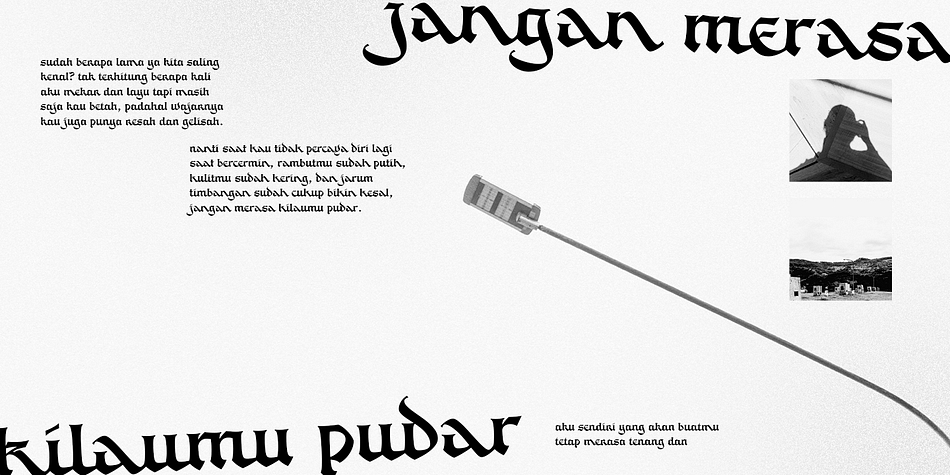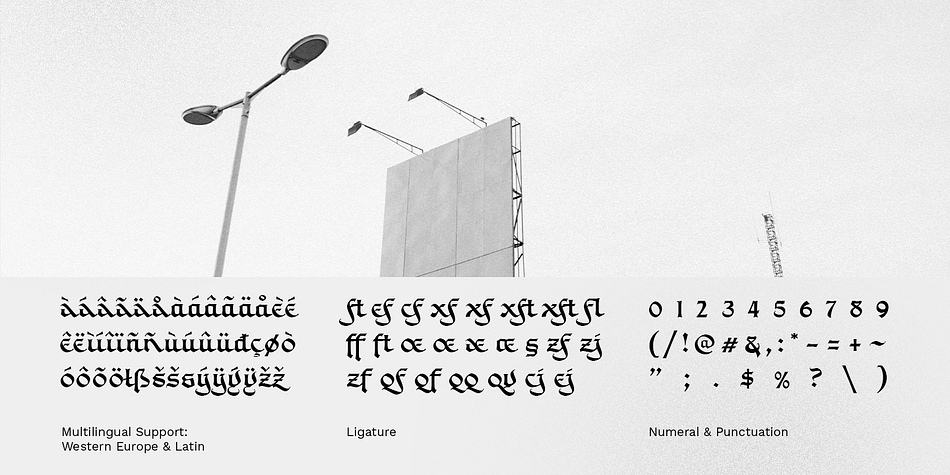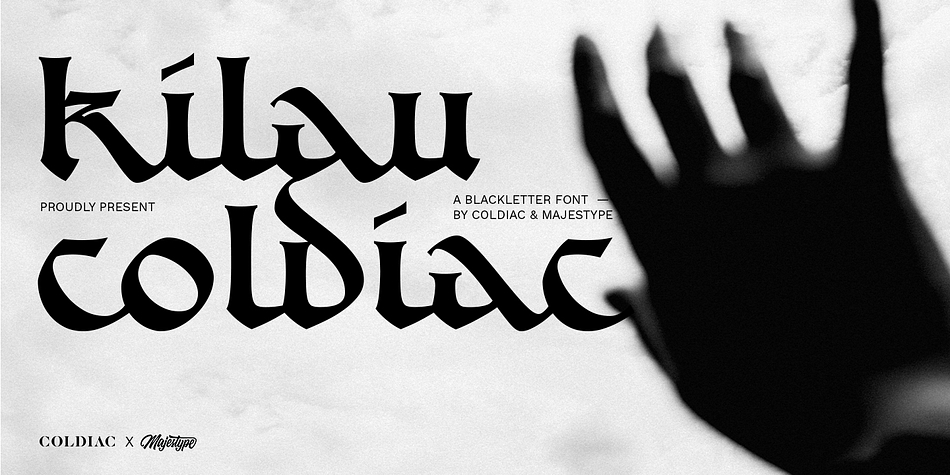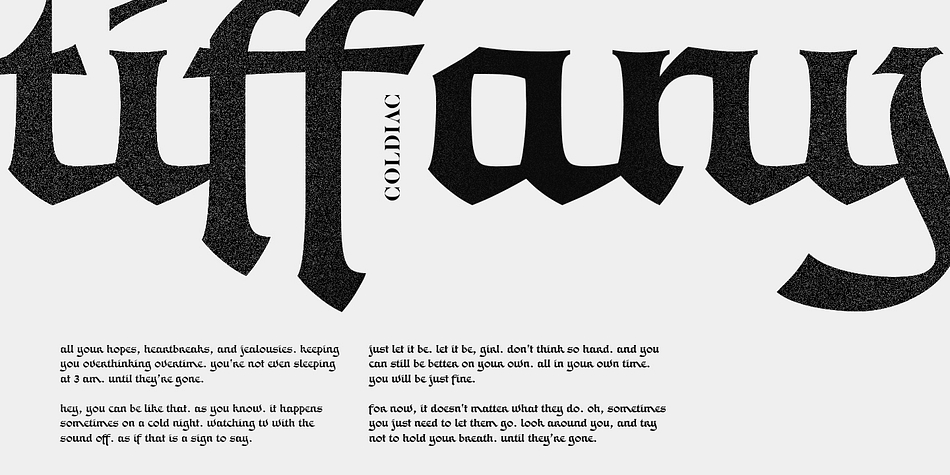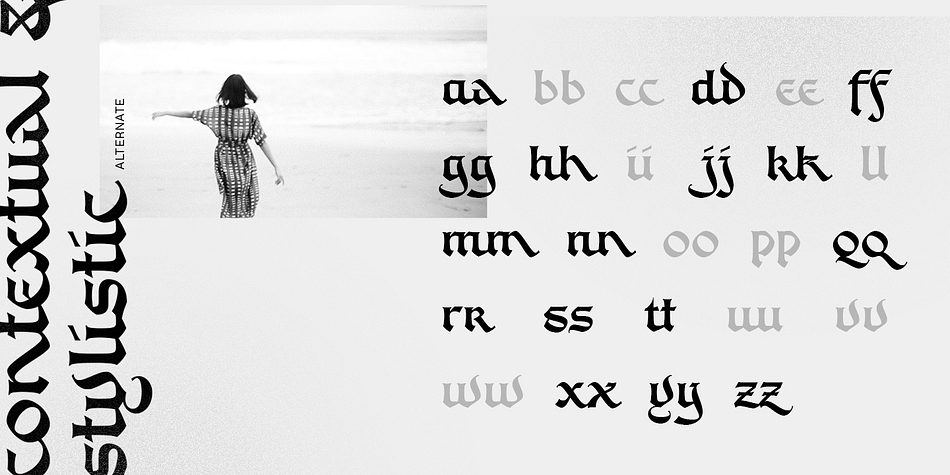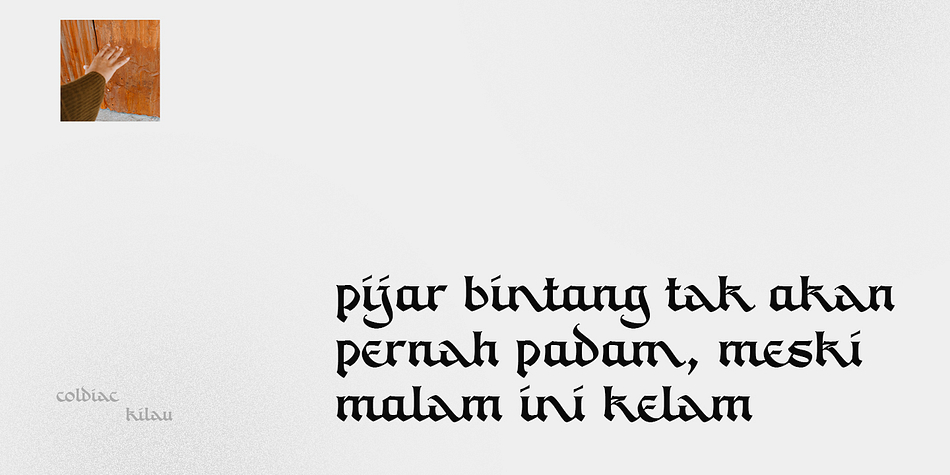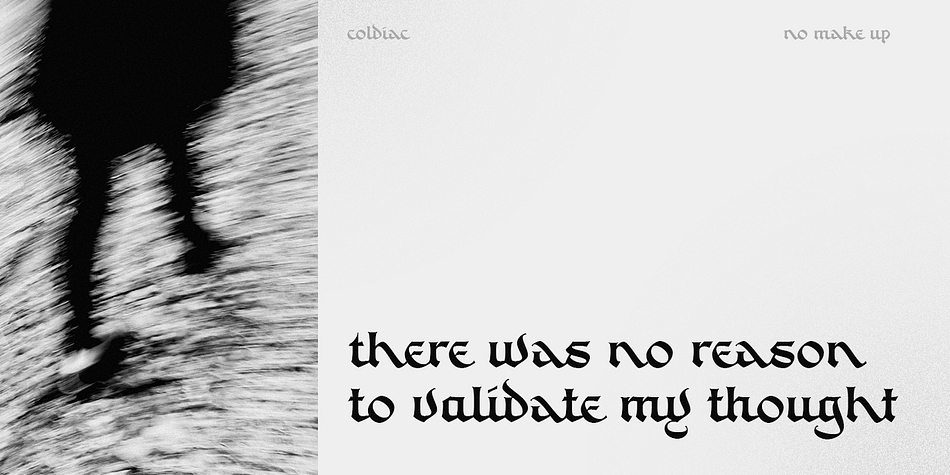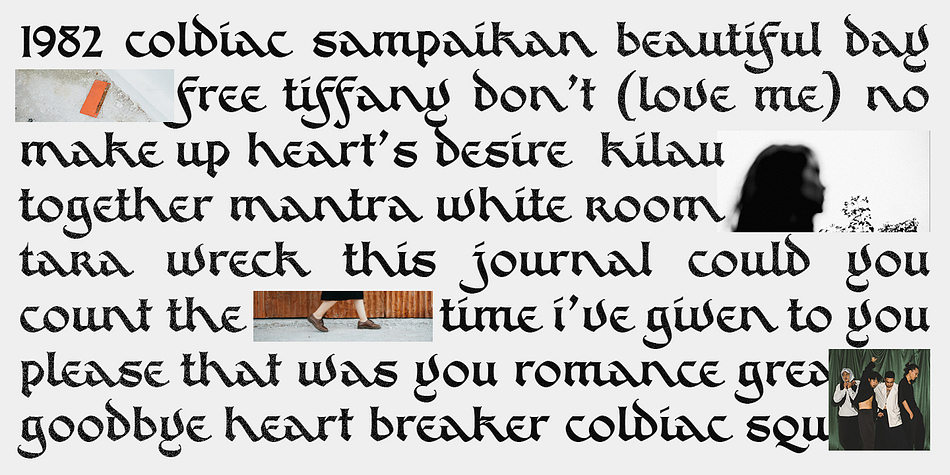
Designed by Dexsar Anugrah and Erwin Indrawan, Kilau is a blackletter, exotic and hand display font family published by Majestype.
A collaboration between Coldiac (a four-piece pop band from Indonesia) & Majestype (typefoundry from Makassar Indonesia) with the help of Erwin Indrawan (lettering artist from Bandung) as the font designer.
Kilau font is the official font that we’ve been using for Coldiac the newest single artwork (kilau) & branding material.
Kilau comes with 250+ Glyphs and has a kerning feature to make it legible and OpenType (Alternative Character), which is very useful for today’s design software as it provides a lot of options. One of the most frequently used is to change certain characters according to your taste.